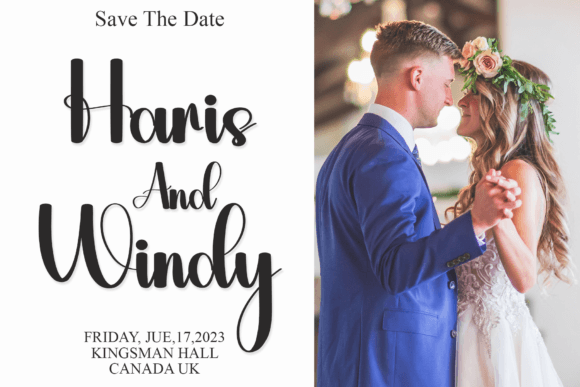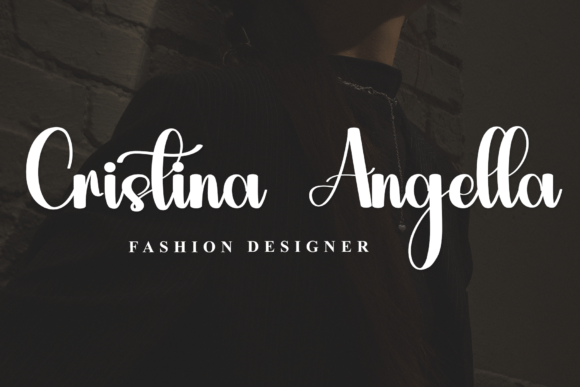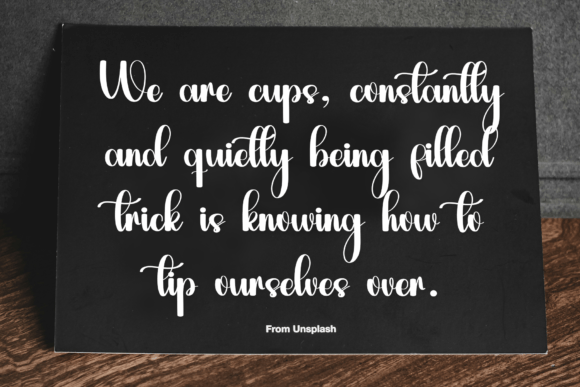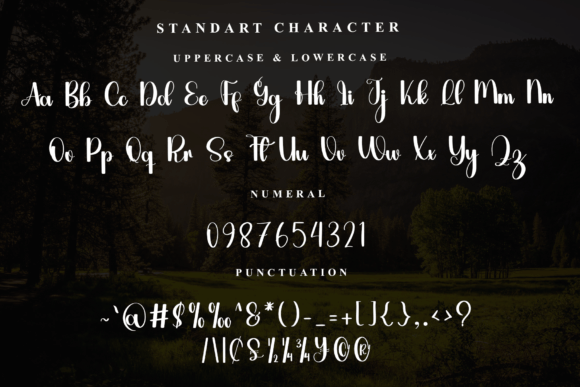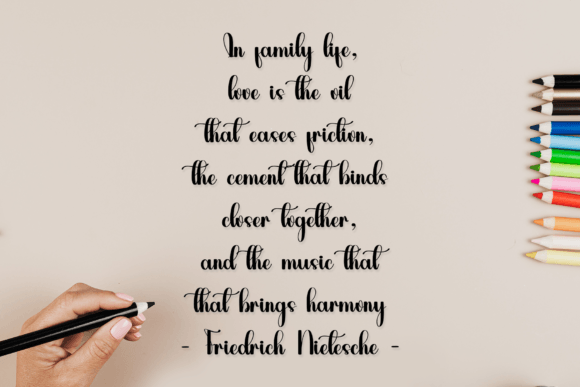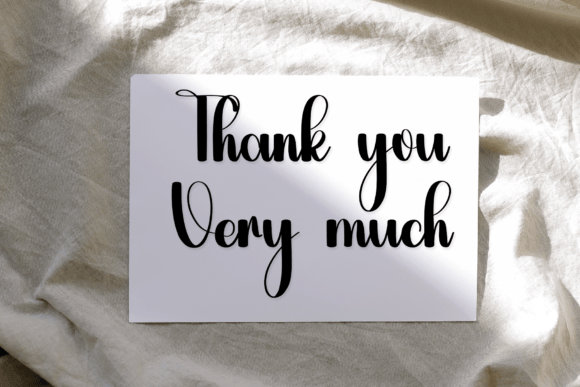
Introduction to Magniton Font
Do you remember the magical feeling of receiving a handwritten holiday card from a loved one? The way the ink danced across the paper, the intricate details, and the warmth it conveyed? That’s exactly what the Magniton Font brings to your designs – a touch of that same magic.
As a designer, you’re always on the lookout for the perfect design resource to elevate your creative project. And during the holiday season, that resource is even more crucial. With its festive and happy vibe, the Magniton Font is the perfect addition to your toolkit. Whether you’re creating greeting cards, gift labels, or any other holiday-themed project, this font is sure to bring a high-quality, cheerful atmosphere to your words.
Magniton Font: Key Features
- Unique design with a transparent background, allowing for easy integration into any creative project.
- High-quality font with a wide range of characters, including uppercase and lowercase letters, numbers, and special symbols.
- Perfect for designers, artists, and creatives working on a variety of projects, from logos and branding to digital art and typography.
Honest Review: Magniton Font
I recently stumbled upon the Magniton Font, and I must say, it’s been a game-changer for my design projects. This font is perfect for creatives who are looking for a unique and eye-catching design resource.
- High-quality design: The Magniton Font is crisp, clear, and has a professional look that elevates any creative project.
- Transparent background: The font’s transparent background makes it easy to use with various design elements and backgrounds.
- ⚠️ Limited character set: The Magniton Font only comes with a limited character set, which may not be suitable for projects that require a wide range of characters.
- ⚠️ Not ideal for small text: The font’s bold and playful style may not be the best choice for small text, as it can be difficult to read.
Overall, I’m really impressed with the Magniton Font. It’s a high-quality design resource that can add a touch of creativity to any project. While it has its limitations, I think it’s well worth the free download.
Magniton Font
The Magniton Font is a high-quality design resource perfect for creative projects. It offers a unique and stylish look with a transparent background, making it ideal for a variety of applications.
Tips for Getting the Most Out of the Magniton Font
To get the most out of the Magniton Font, try experimenting with different font sizes, colors, and arrangements to create unique and eye-catching designs.
The Magniton Font is perfect for a variety of use cases, including:
- Marketing materials, such as brochures and flyers.
- Branding and logos.
- Web design and development.
Alternatives to Magniton Font
The Great Vibes Font is a high-quality, elegant script font that can be used for various creative projects. It is perfect for designers who want to add a touch of sophistication to their design work. Great Vibes Font is ideal for use in wedding invitations, branding materials, and other design elements where a subtle, cursive feel is desired.
When compared to Magniton Font, Great Vibes Font has a more refined and delicate appearance, making it suitable for projects that require a more subtle design approach. Great Vibes Font is available for free download and can be used with a transparent background, making it a versatile design resource.